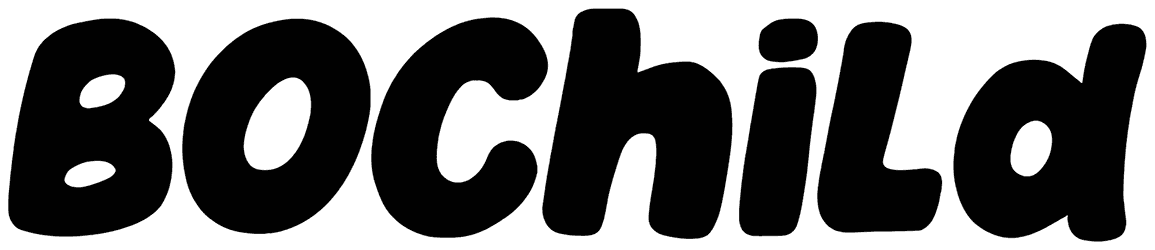
Bochild Font
Bochild is a friendly, fancy font with a fun style and is suitable for creating funny and exciting content. Bold lines and outstanding effects of this font can attract viewers from a distance and create a strong visual impact.
Using this cartoon font, you can create headers, advertisements, and titles that will attract audiences of different ages or tastes and spread your content in a positive atmosphere in their minds.